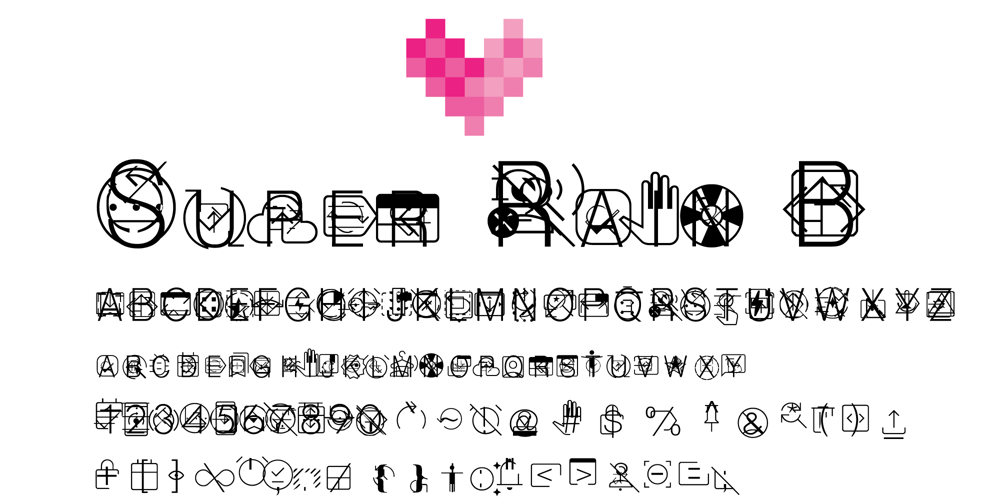
Super Just B Font Family was designed by Roland Hüse, Yona Yang and published by Yangtype. Super Just B contains 1 styles and family package options. These letters contain a rich geometric imagination. Humans create pictures using the minimum number of lines to most appropriately express their thoughts. This is the initial stage of writing. This letter contains a complex process of creating letters. This has the charm of attracting people.